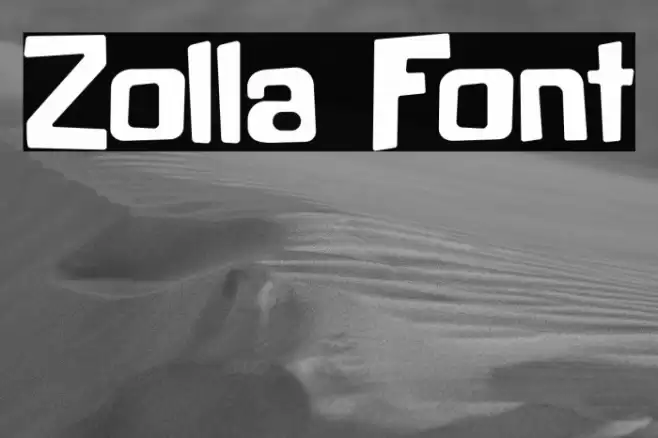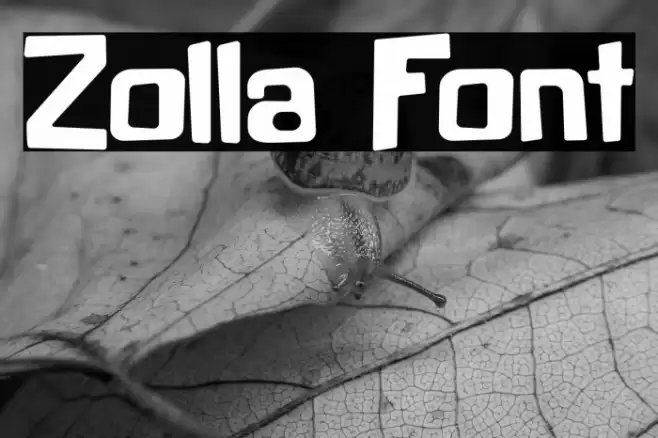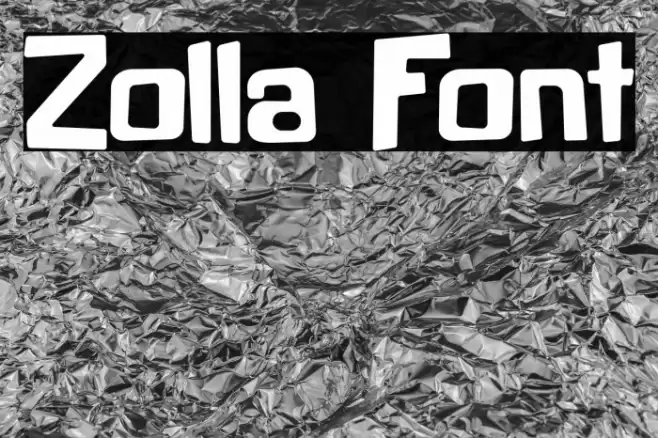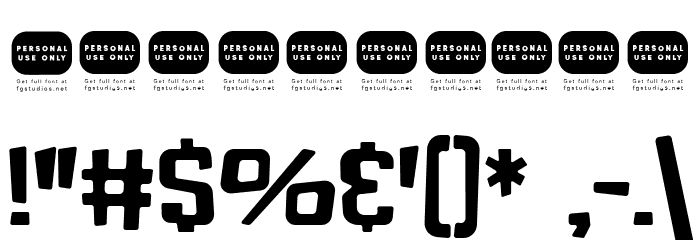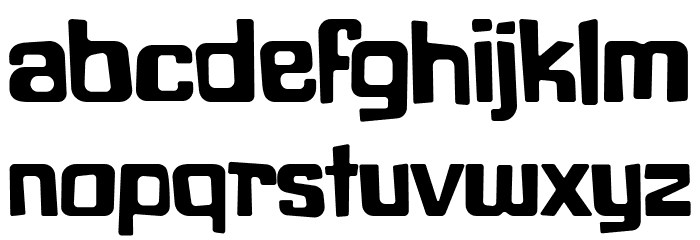
Zolla Font
Zolla Description
This font features a bold and playful design with a slightly irregular and hand-drawn appearance. The characters are thick and robust, with a unique style that combines both geometric and organic elements. The uppercase letters are strong and commanding, while the lowercase letters maintain a consistent flow with rounded edges. The numbers and special characters follow the same bold and quirky aesthetic, making them stand out. This font is ideal for projects that require a fun and engaging look, such as children's books, posters, or branding for creative industries.
A bold, playful font with a hand-drawn, irregular style from Uncategorized fonts.
- Font: Zolla
- Proposed Projects: Children's books, creative posters, branding for artistic ventures.
- Overall Style: Playful, Quirky, Artistic